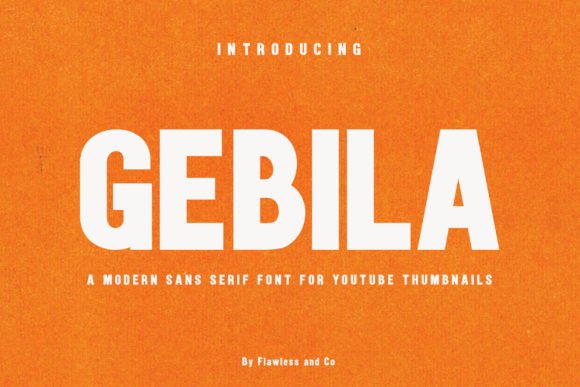
Introducing Gebila Font: Elevate Your YouTube Thumbnails and Graphic Designs
In the vast and competitive world of YouTube, capturing the attention of your audience is paramount. One of the most effective ways to stand out from the crowd is through eye-catching thumbnails. A well-designed thumbnail can significantly increase your video’s click-through rate, making it an essential component of your content strategy. This is where Gebila Font comes into play, a bold and captivating sans-serif font engineered to make your YouTube thumbnails pop.
What is Gebila Font?
Gebila is a modern sans-serif font characterized by its clean lines and geometric structure. This design aesthetic lends Gebila a sense of modernism and professionalism, making it an ideal choice for creators looking to elevate their brand and content presentation. Its versatility allows it to perfectly complement a wide range of YouTube content, from educational videos and vlogs to gaming and tech reviews.
The Design and Features of Gebila Font
Gebila’s design is centered around simplicity and legibility, making it highly readable even at smaller sizes. This feature is particularly beneficial for YouTube thumbnails, where titles often need to be concise yet impactful. The font’s geometric structure gives it a sleek and contemporary look, ensuring that your thumbnails not only grab attention but also convey a sense of modernity and professionalism.
Some of the key features of Gebila Font include:
- Bold and Captivating: Gebila’s bold design ensures that your thumbnails stand out, even in a crowded YouTube landscape.
- Clean Lines and Geometric Structure: These design elements contribute to Gebila’s modern and professional appearance.
- High Versatility: Gebila can be used across a wide range of YouTube content, making it a versatile addition to your branding toolkit.
- Excellent Legibility: The font’s clarity ensures that your titles are easy to read, even on smaller screens.
Uses of Gebila Font in Graphic Design
While Gebila Font is highlighted for its effectiveness in YouTube thumbnails, its applications extend far beyond. This font can be seamlessly integrated into various graphic design projects, including:
- Branding Materials: Use Gebila to create a consistent and professional look across your brand’s marketing materials.
- Video Content: Enhance your video intros, outro, and titles with a modern and captivating font.
- Print Materials: From business cards to posters, Gebila can add a touch of modernism to your print designs.
- Logos and Icons: The bold and geometric design of Gebila makes it suitable for logos and icons that require a contemporary look.
- T-Shirts and Merchandise: Create visually appealing designs for your merchandise with Gebila’s clear and readable style.
- Photography and Quotes: Overlay quotes or descriptions on your photographs with a stylish and legible font.
Why Choose Gebila Font for Your YouTube Thumbnails?
Choosing the right font for your YouTube thumbnails is crucial for capturing viewer attention and setting the tone for your content. Here are several reasons why Gebila Font stands out:
- Enhanced Visibility: Gebila’s bold design ensures that your thumbnails are noticeable, even in a fast-scrolling feed.
- Professional Appearance: The font’s modern and clean aesthetic lends a professional look to your thumbnails, enhancing your brand’s credibility.
- Versatility: Gebila can be used across various content types, making it a versatile choice for creators with diverse content strategies.
- Easy to Read: Despite its boldness, Gebila maintains excellent legibility, ensuring your titles are easy to read.
Tips for Using Gebila Font Effectively
To maximize the impact of Gebila Font in your graphic designs and YouTube thumbnails, consider the following tips:
- Combine with High-Quality Images: Pair Gebila with high-quality, relevant images to create visually compelling thumbnails.
- Keep it Simple: Avoid overcrowding your thumbnails with text. Keep your titles concise and to the point.
- Consistency is Key: Use Gebila consistently across your branding materials and thumbnails to build a recognizable visual identity.
- Experiment with Colors: Play around with different text and background colors to find the combination that makes your thumbnails pop.
Gebila Font is a powerful tool for creators looking to elevate their YouTube thumbnails and graphic designs. Its bold, modern, and captivating design makes it an excellent choice for standing out in a crowded digital landscape. With its versatility, legibility, and professional appearance, Gebila can enhance your brand’s visual identity and help you connect with your audience more effectively. Whether you’re a YouTuber, graphic designer, or simply someone looking to create engaging content, Gebila Font is an asset that can contribute to your success.